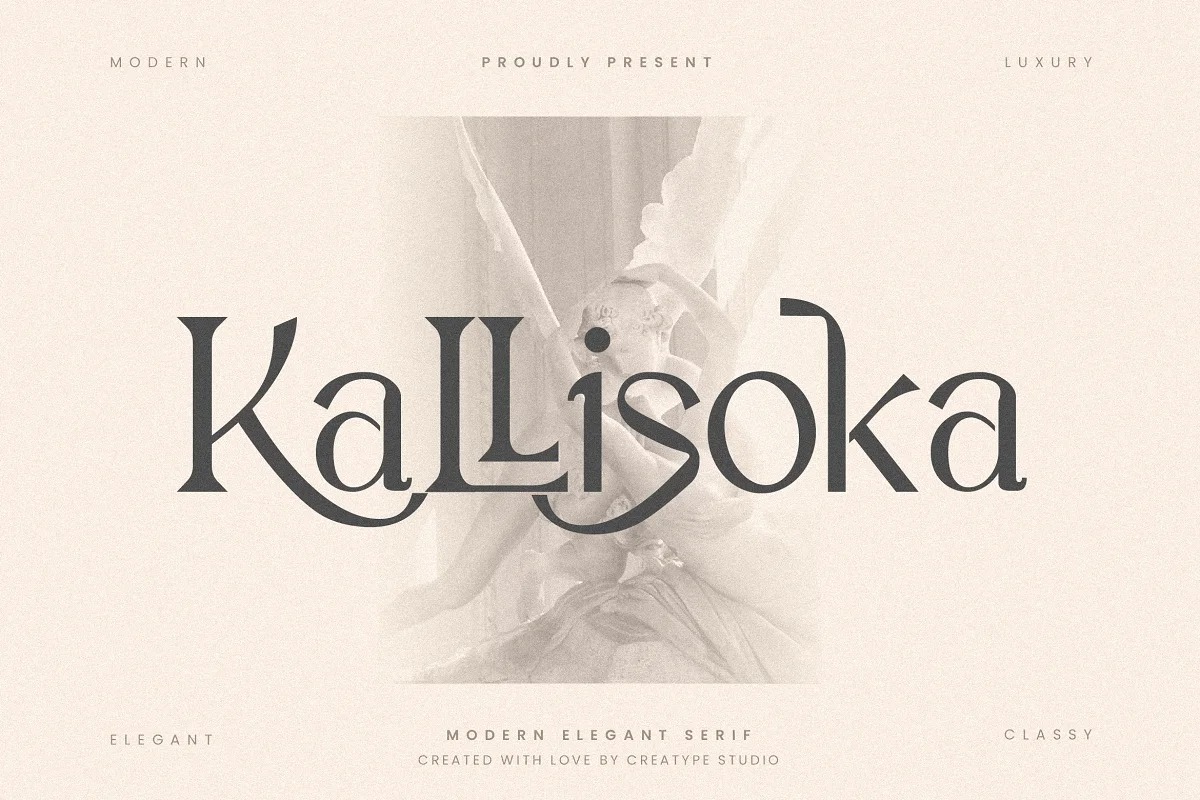
Kallisoka Font
Kallisoka Serif Font
A stylish and chic serif typeface with classy ligatures and alternates. It’s designed and shared by Creatype Studio. This font has been carefully designed for natural handwritten text, there are 18 ligatures and 25 alternatives to get free-flowing strokes.